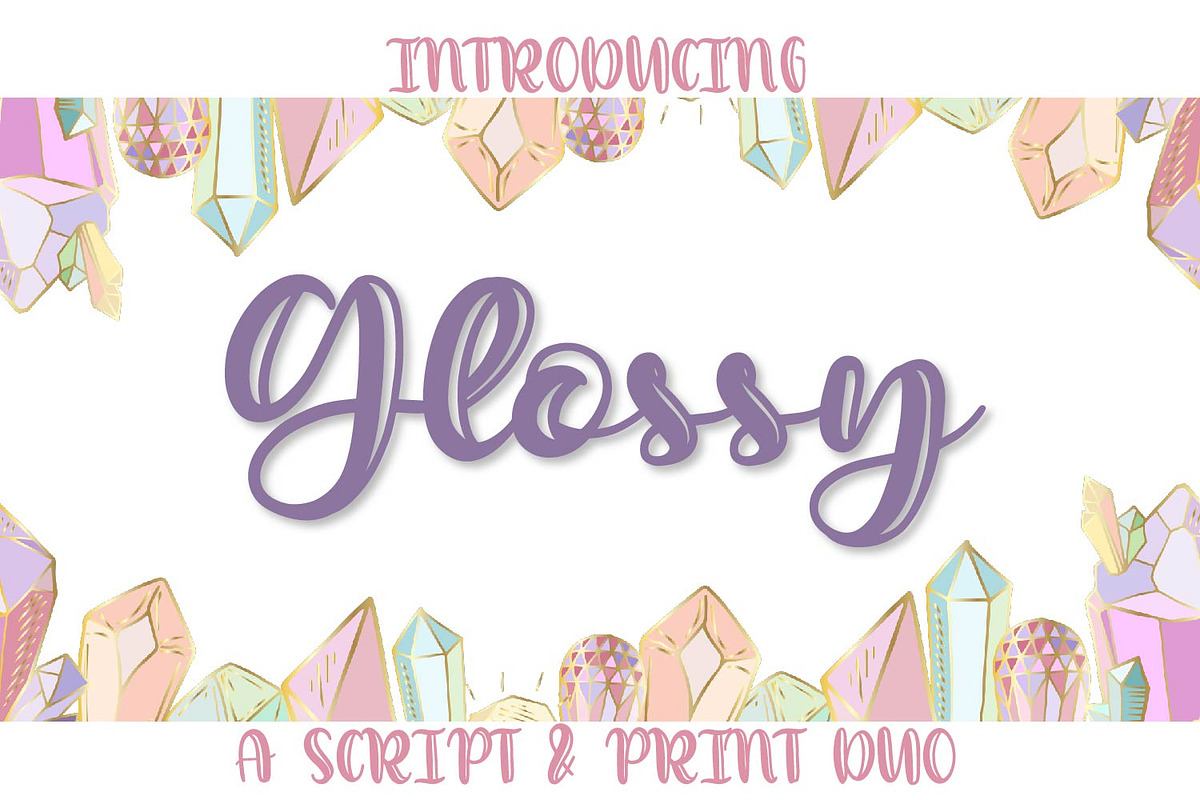
Glossy - A Script & Print Duo Font Free Download is a versatile and stylish typeface combination that brings together the elegance of handwritten script with the clarity of a modern print font. This dynamic duo is perfect for creative projects that require contrast and harmony—ideal for branding, product packaging, social media graphics, and wedding invitations.
The script font offers a fluid, natural hand-drawn look, while the print font balances it with clean lines and legibility. Together, they create a polished, designer-quality feel that's both approachable and refined. Whether you're going for chic and trendy or minimal and modern, this font duo adapts beautifully to your aesthetic needs.